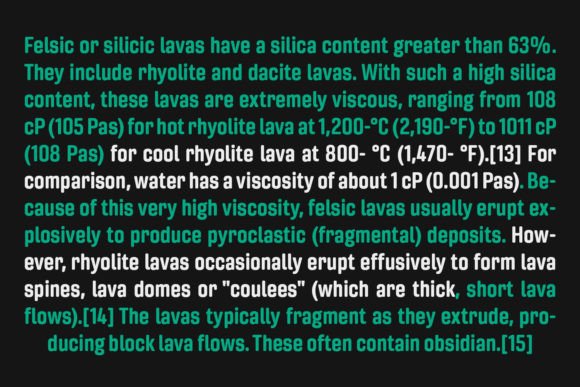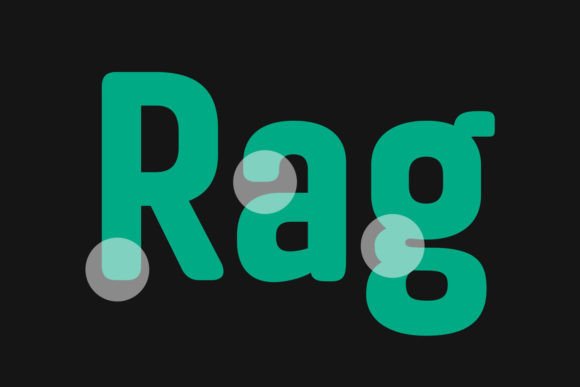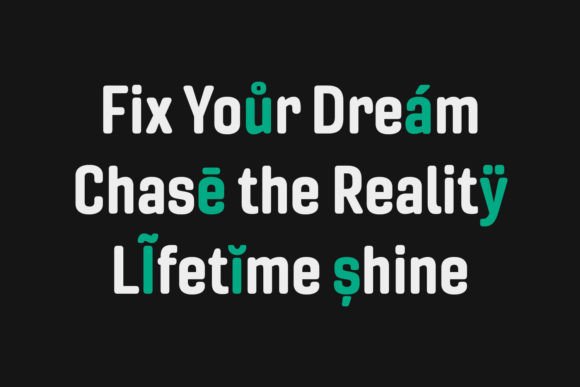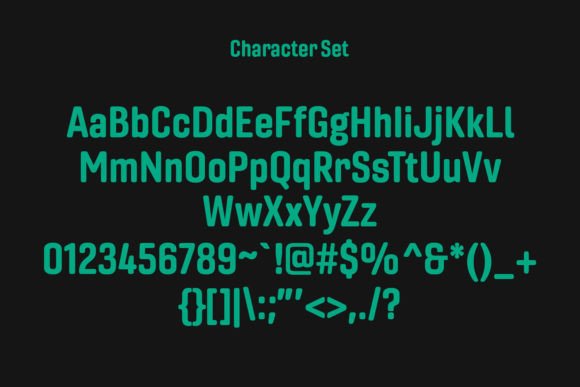
Introduction to Melagos Font
Have you ever stared at a blank canvas, waiting for that perfect spark of creativity to hit you? As a designer, you know how elusive it can be to find the right font that elevates your project to the next level. That’s where the Melagos Font comes in – a game-changing, high-quality display font that adds a touch of whimsy and fun to your creative endeavors.
With its bold stroke and playful characters, the Melagos Font is the perfect design resource for anyone looking to add an extra layer of creativity to their projects. Whether you’re working on a logo design, social media campaign, or movie title sequence, this font is sure to make your work stand out from the crowd.
Key Features of Melagos Font
- High-quality, professional design ideal for creative projects and presentations
- Unique, modern design with a clean and minimalist aesthetic, perfect for modern creative projects
Honest Review: Melagos Font
I recently had the chance to work with the Melagos Font, and I’m excited to share my thoughts on this design resource.
What works well: ✨ The Melagos Font has a unique and modern design that makes it perfect for creative projects. The font’s clean lines and geometric shapes give it a high-quality feel that’s hard to find in free downloads.
What doesn’t work as well: ⚠️ While the Melagos Font is a great addition to any design toolbox, it can be a bit tricky to work with for beginners. The font’s complex design can be overwhelming for those who are new to font design.
Overall, I’m really impressed with the Melagos Font. Its unique design and high-quality feel make it a great resource for designers looking to add some creativity to their projects.
Common Use Cases for Melagos Font
Melagos Font is ideal for a variety of creative projects, including logos, brochures, business cards, and social media graphics. Its high quality design features make it a popular choice among designers and non-designers alike.